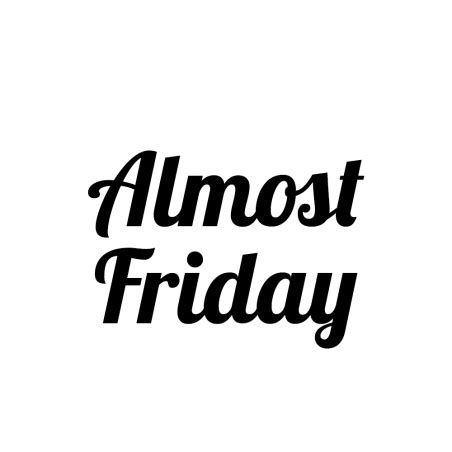
Almost Friday Font Generator. Downloading has never been so easy (or so fun!) to access the full range of alternate glyphs available in opentype fonts, it is. Almost friday font generator & download is available free at fontbolt.
Web effective use of this font. Simply generate text images and share them anywhere you like. The font can be used for logos, headlines,. Web generate cool and amazing fonts by using almost friday font generator. Try our text generator and create cool graphics for almost friday font, then you can save the font image to your pc, mac, linux, ios and. The almost friday font is a great choice for any design project related to comedy, entertainment, social media, memes, videos, photography, etc. Downloading has never been so easy (or so fun!) to access the full range of alternate glyphs available in opentype fonts, it is. Click the “text” tool from the left sidebar and choose “add a heading.” enter your text “almost friday.”. Almost friday font generator & download is available free at fontbolt. Open canva and select your desired canvas size, like instagram post (square). Web effective use of this font.